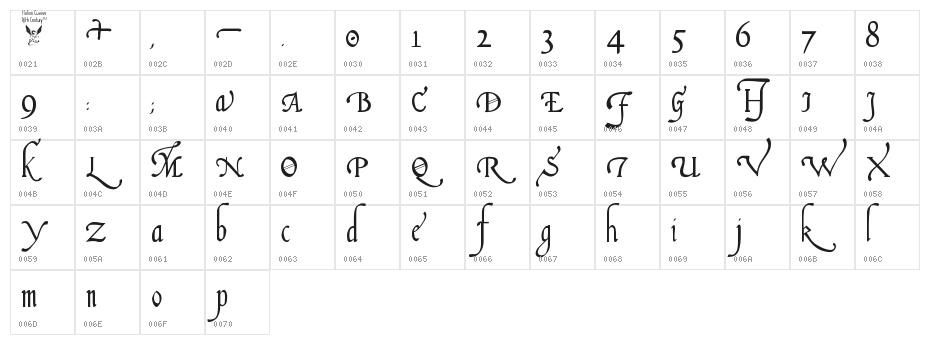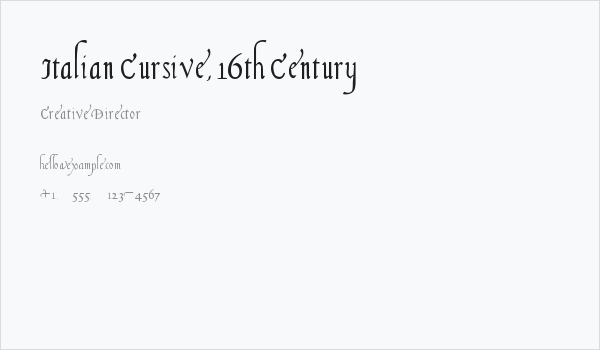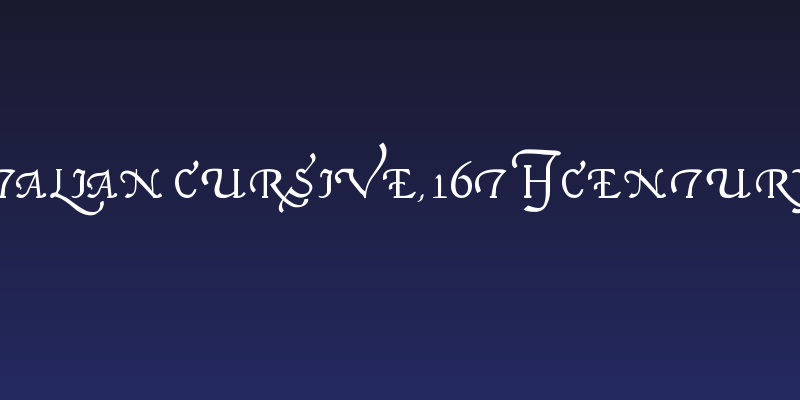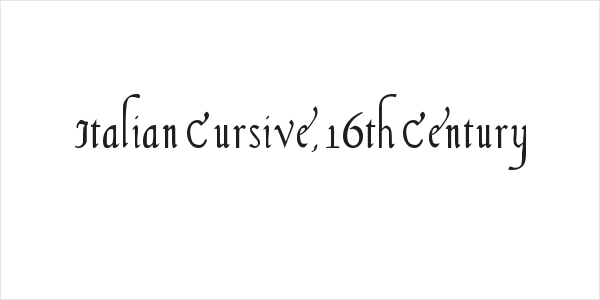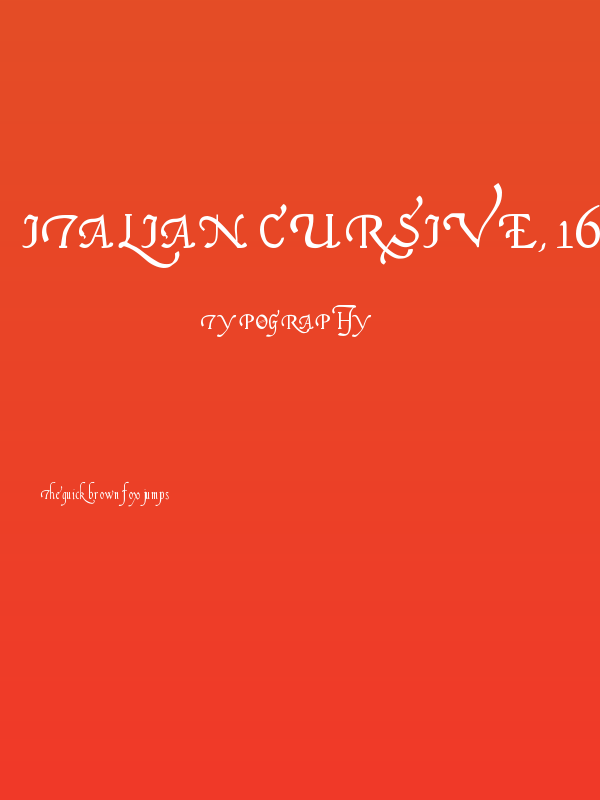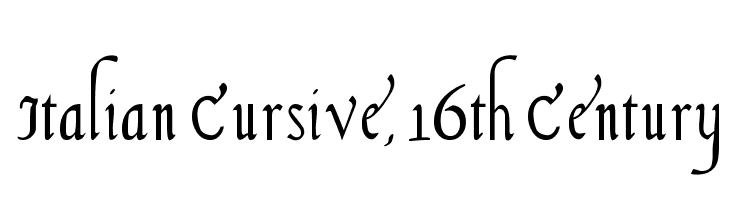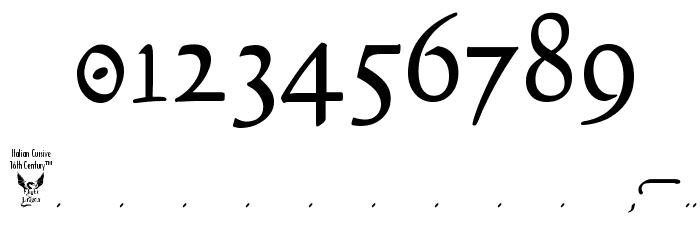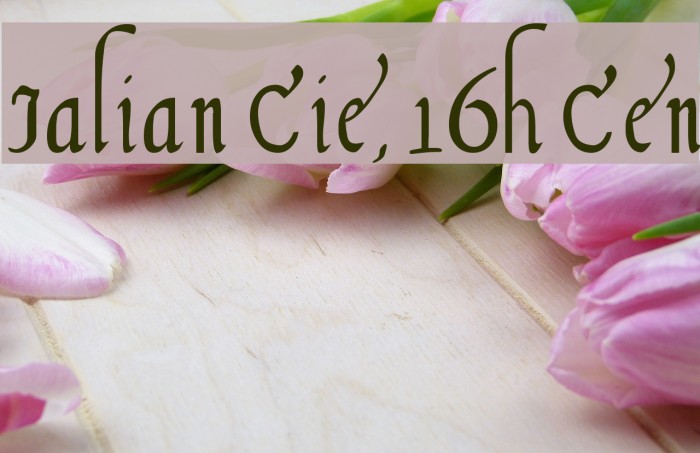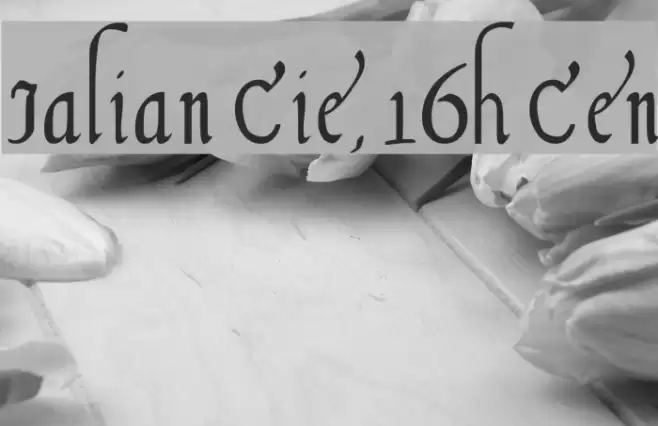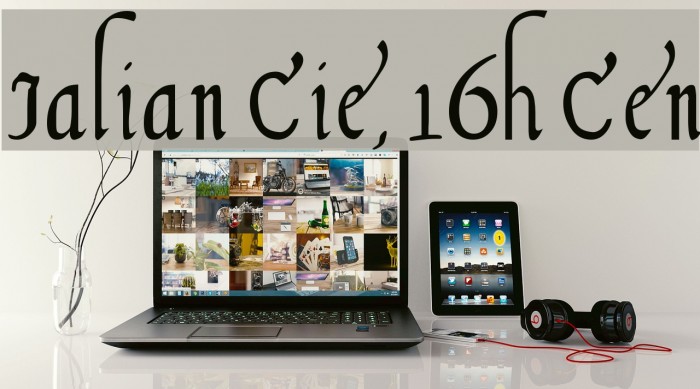
Italian Cursive, 16th Century Font
Italian Cursive, 16th Century Description
This font is a beautiful representation of 16th-century Italian cursive, characterized by its elegant and flowing script. The uppercase letters exhibit a distinct flourish, with intricate loops and curves that give a sense of movement and grace. The lowercase letters maintain a consistent style, with smooth, rounded forms and occasional decorative elements that enhance their visual appeal. Numbers are crafted with the same attention to detail, featuring subtle curves and a slightly elongated form. Special characters are thoughtfully designed to complement the overall aesthetic, making this font a versatile choice for projects that require a touch of historical elegance.
| Overall Style | Vintage |
| Use Case | Logos, Invitations, Decorative text |
| Proposed Projects | Ideal for historical documents, wedding invitations, formal event programs, and vintage-themed branding. |